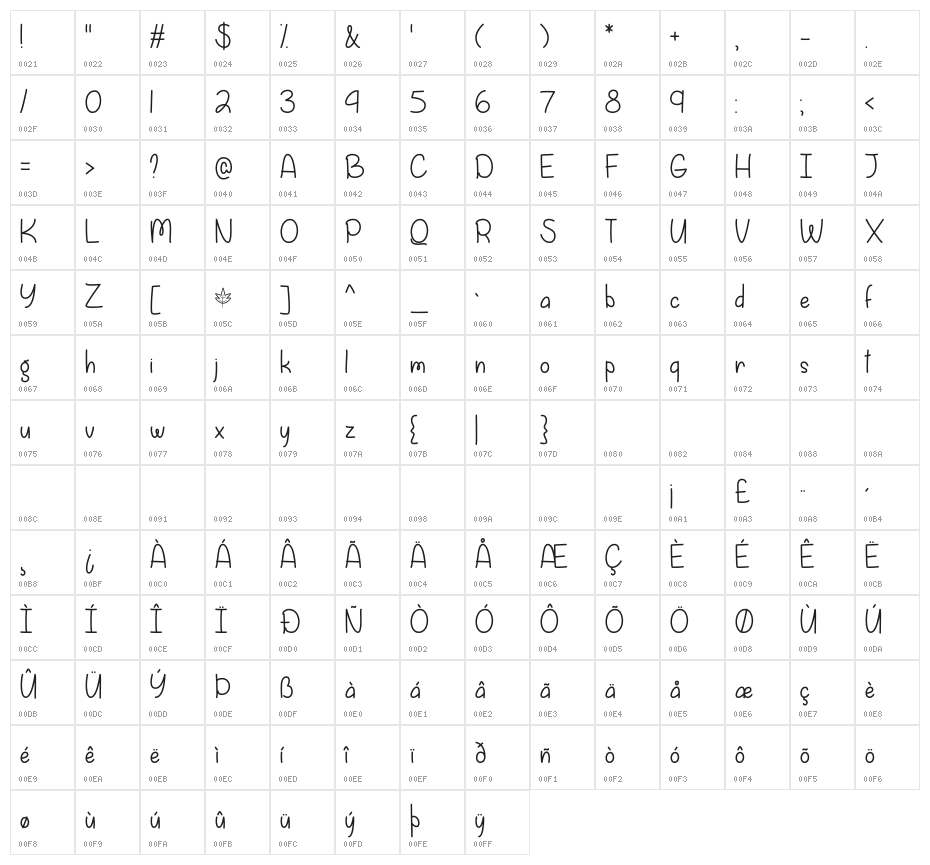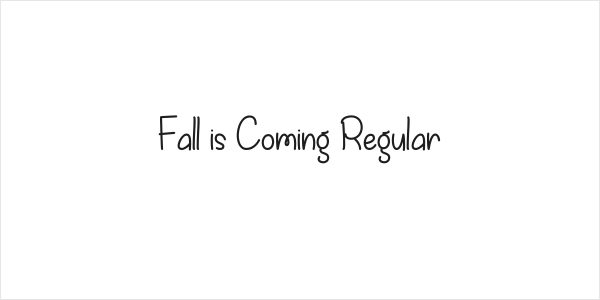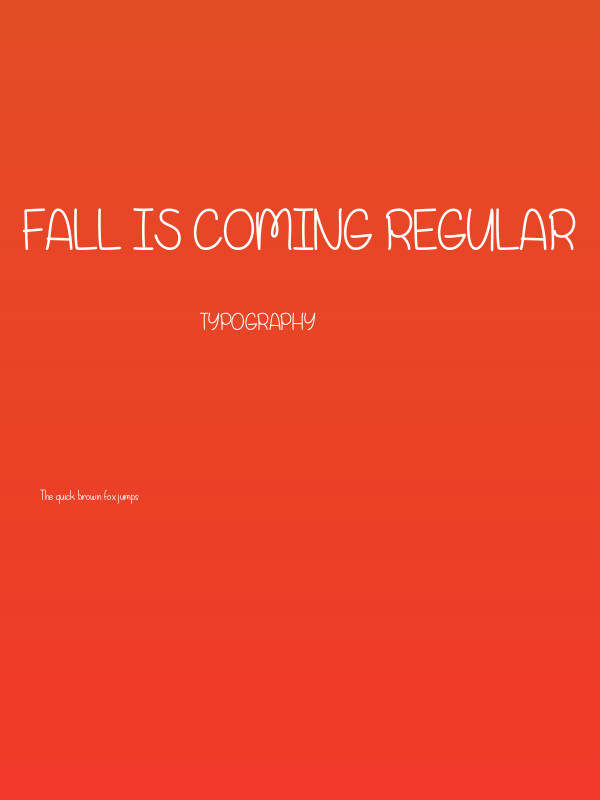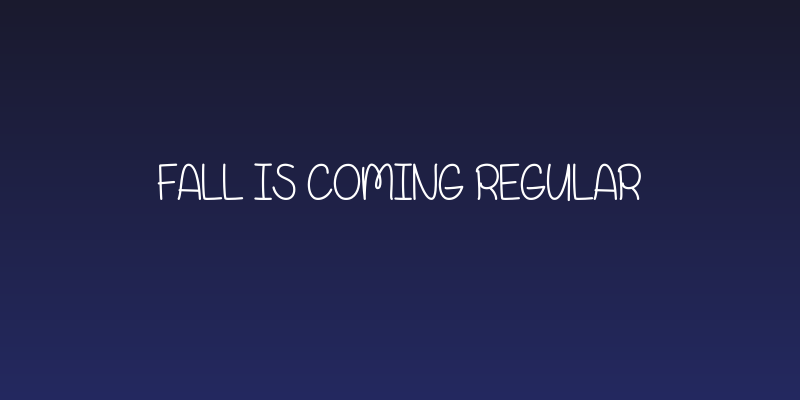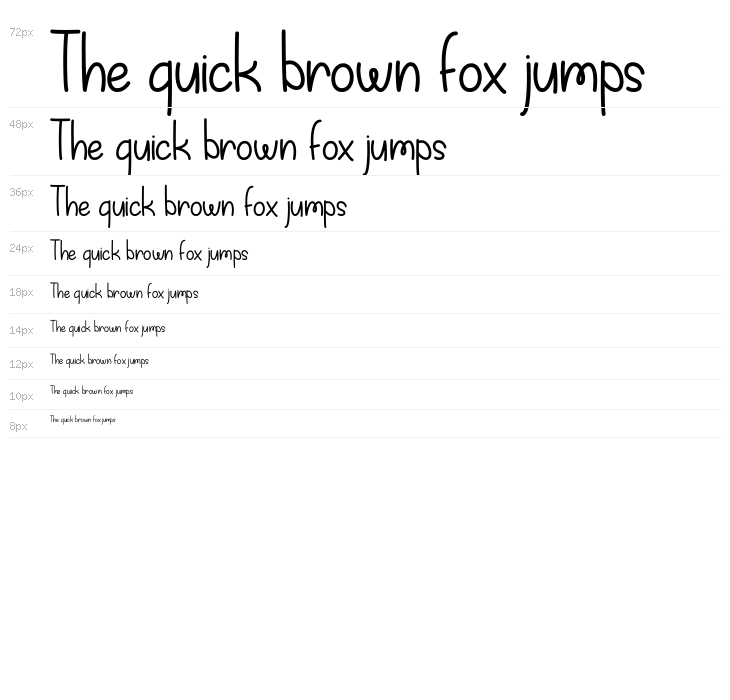
Fall is Coming Regular Font
Fall is Coming Regular Description
This font features a playful and whimsical style with rounded edges and a handwritten feel. The characters are slightly elongated, giving them a unique and friendly appearance. The uppercase letters maintain a consistent height, while the lowercase letters have a charming irregularity that adds to the font's casual aesthetic. Numbers and special characters are designed to match the overall style, ensuring a cohesive look across all text. The font's simplicity and readability make it suitable for a variety of creative projects.
| Proposed Projects | Ideal for greeting cards, children's books, playful branding, and casual invitations. |